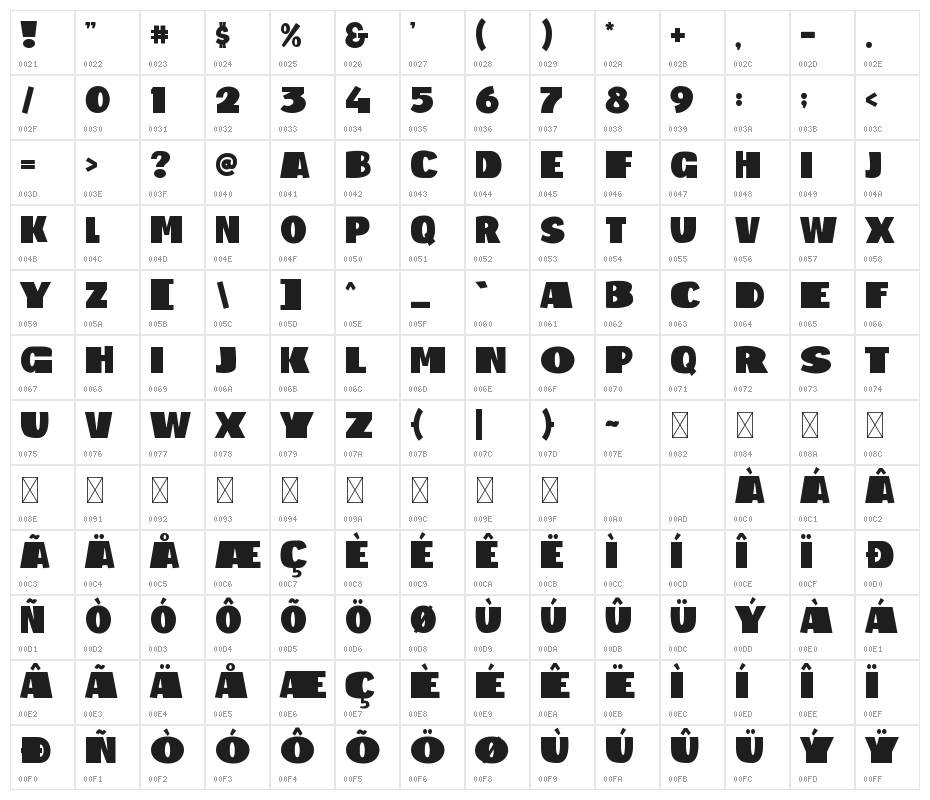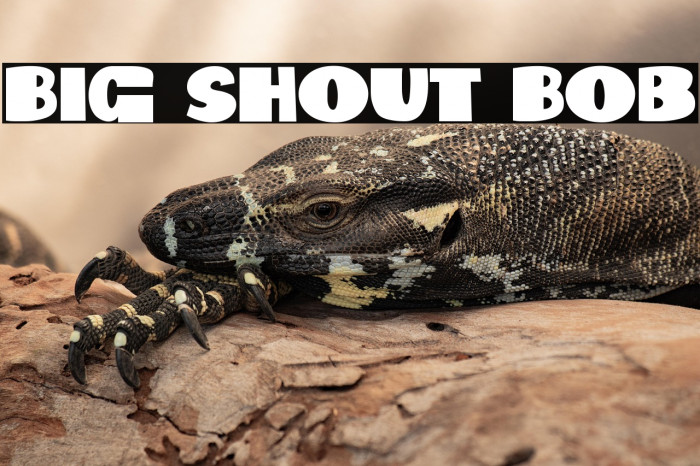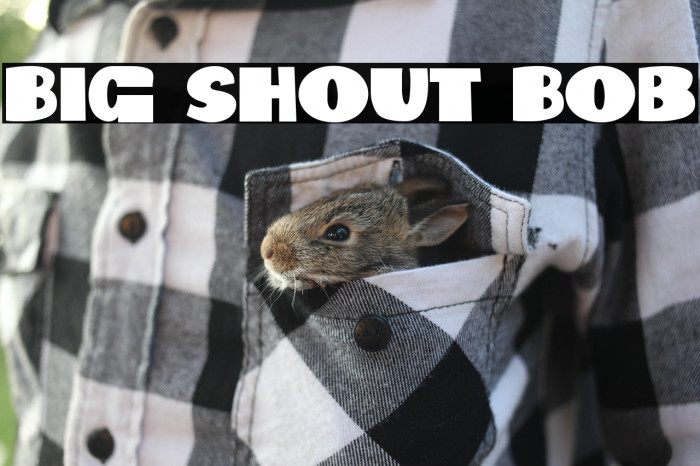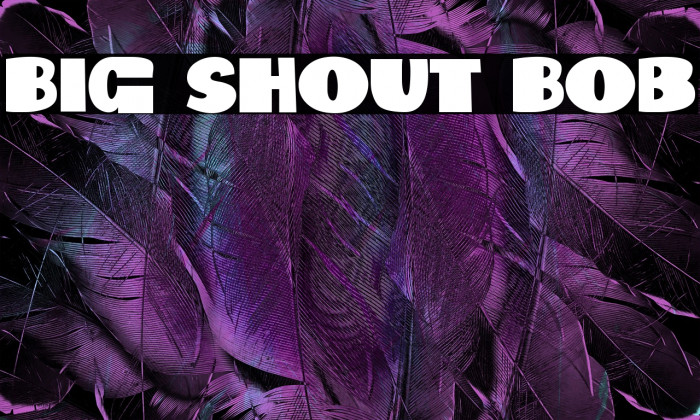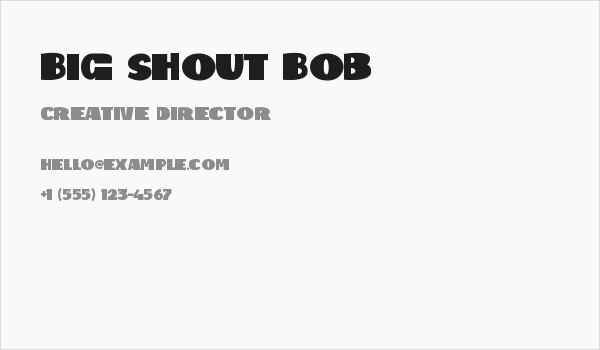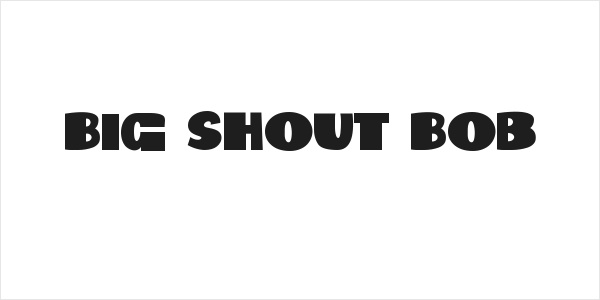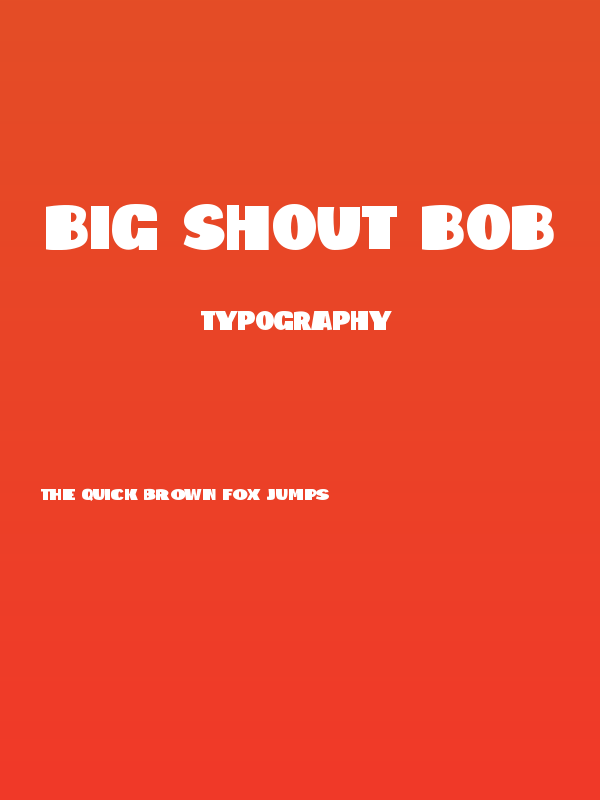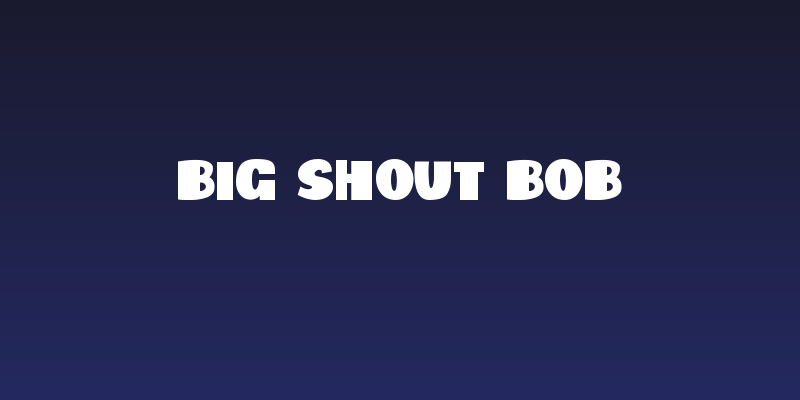
Big Shout Bob Font
Big Shout Bob Description
This font features bold, impactful letters with a strong presence, making it ideal for attention-grabbing headlines and designs. The characters are uniformly wide, with a slightly condensed appearance that enhances their boldness. The uppercase and lowercase letters maintain a consistent style, with rounded edges and a playful, energetic vibe. The numerals are equally bold, ensuring they stand out in any context. Special characters are designed with the same boldness, providing a cohesive look across all elements. The font's thick strokes and minimal contrast give it a robust and solid feel, suitable for projects that require a strong visual impact.
| Proposed Projects | Ideal for posters, advertisements, logos, and any design requiring a strong visual impact. |